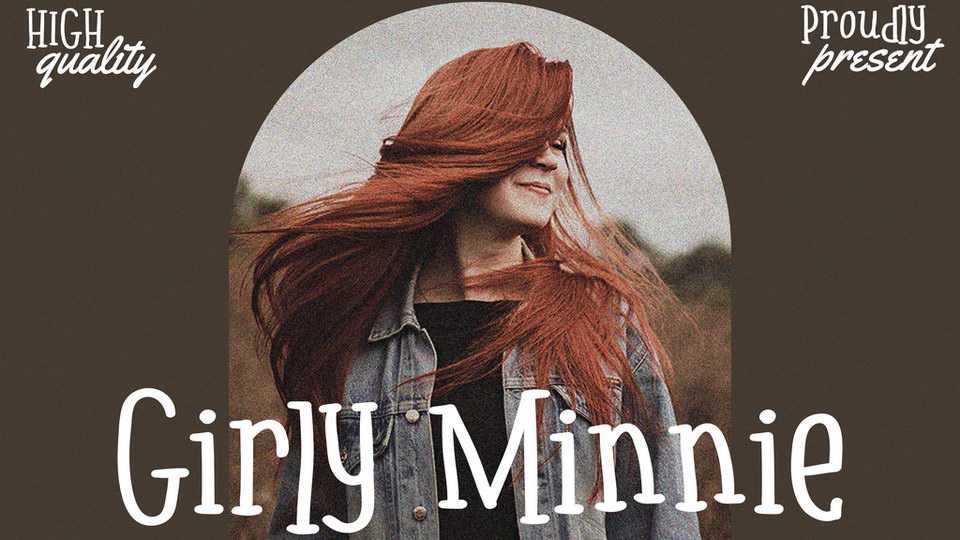
Download Girly Minnie font, a chic and attractive typeface with an outgoing personalities. Girly Minnie will emphasize the cuteness and chic girly vibe that you want to have on your design.